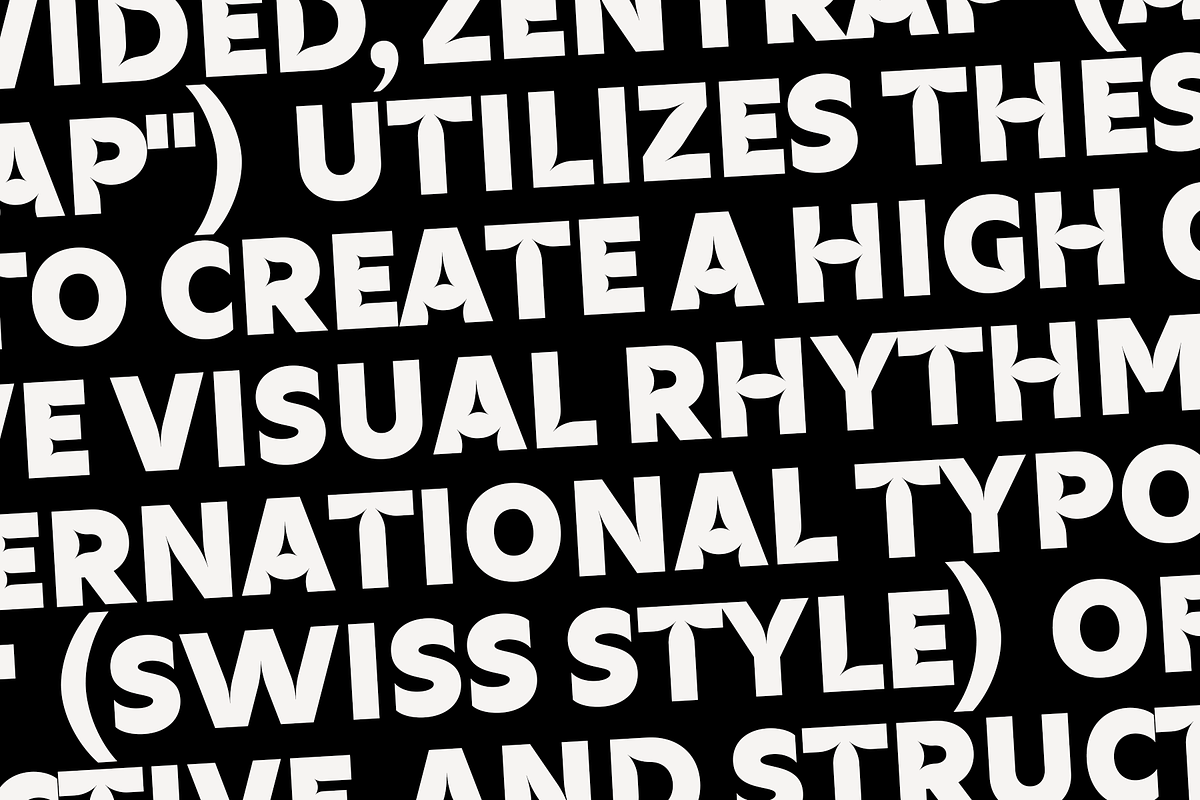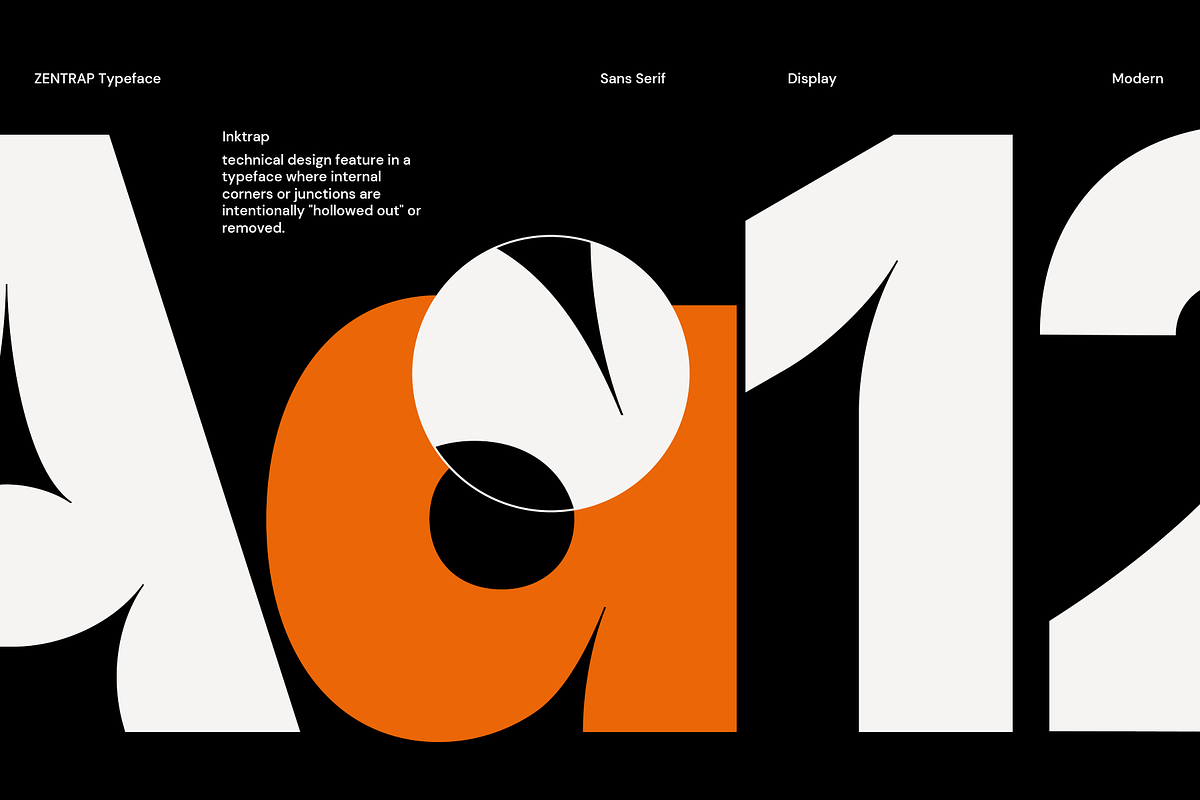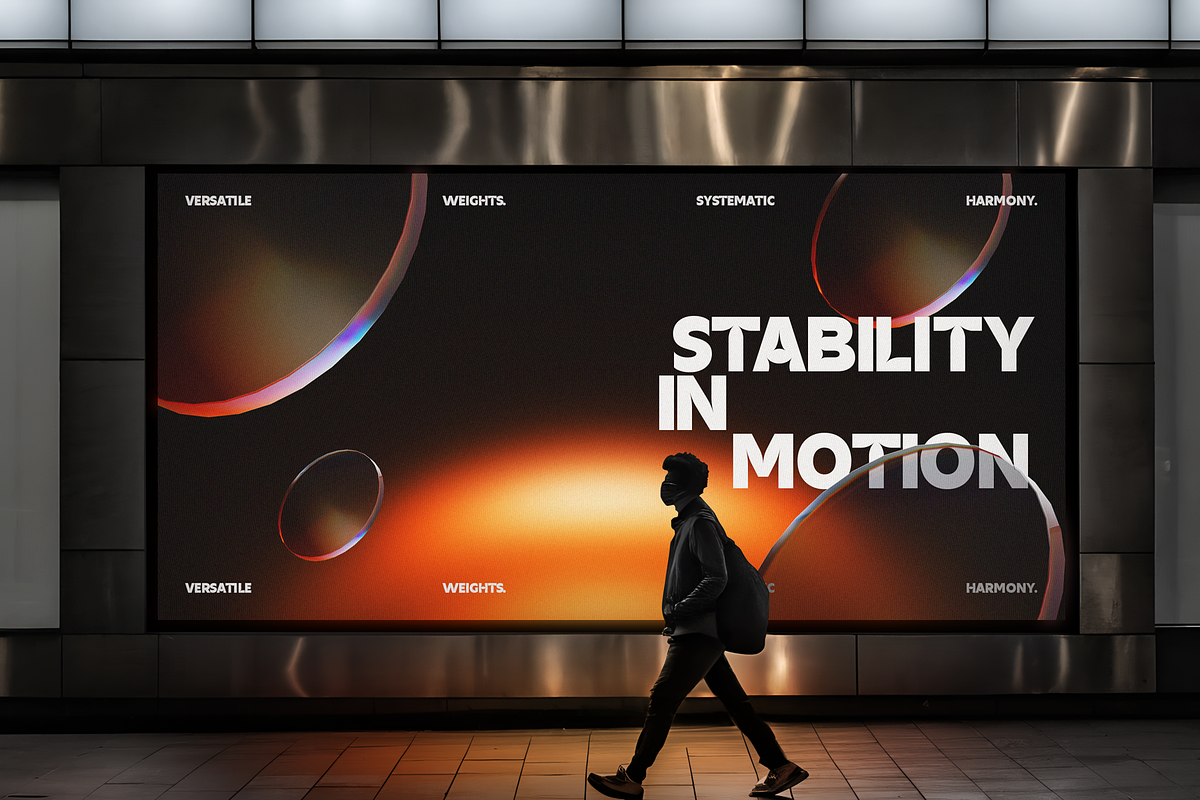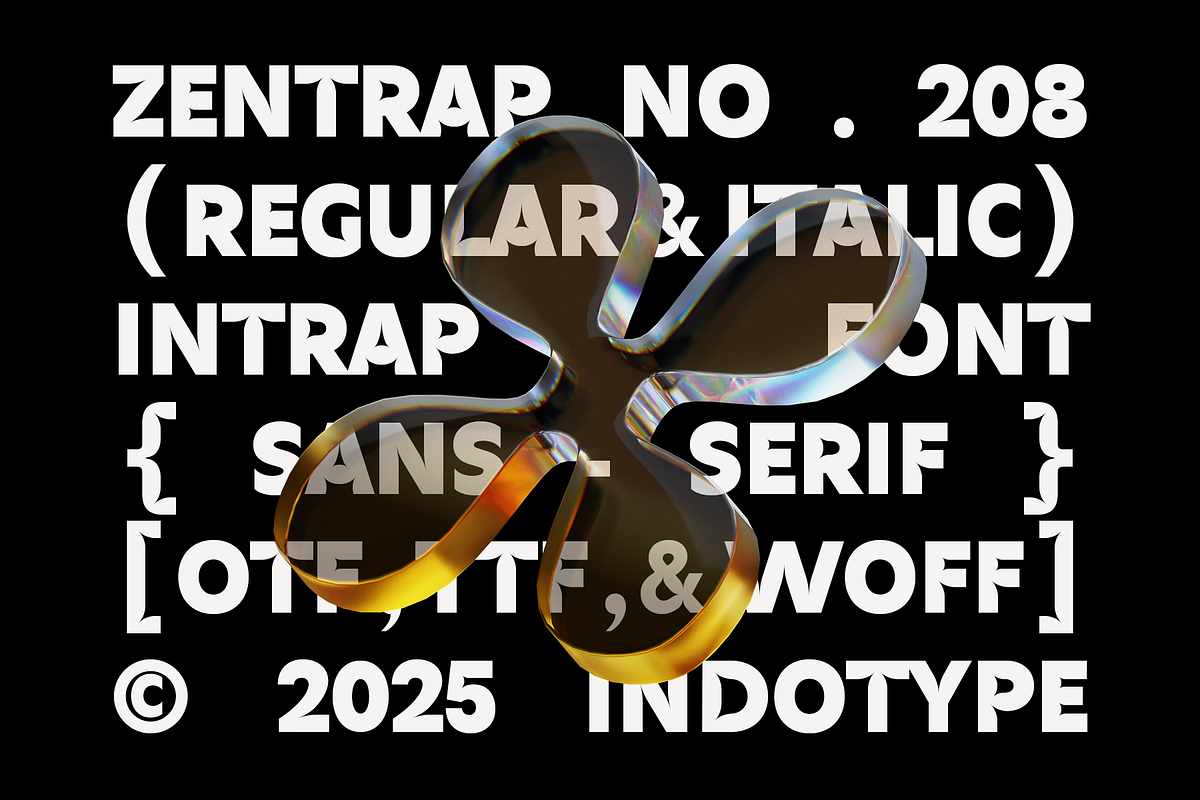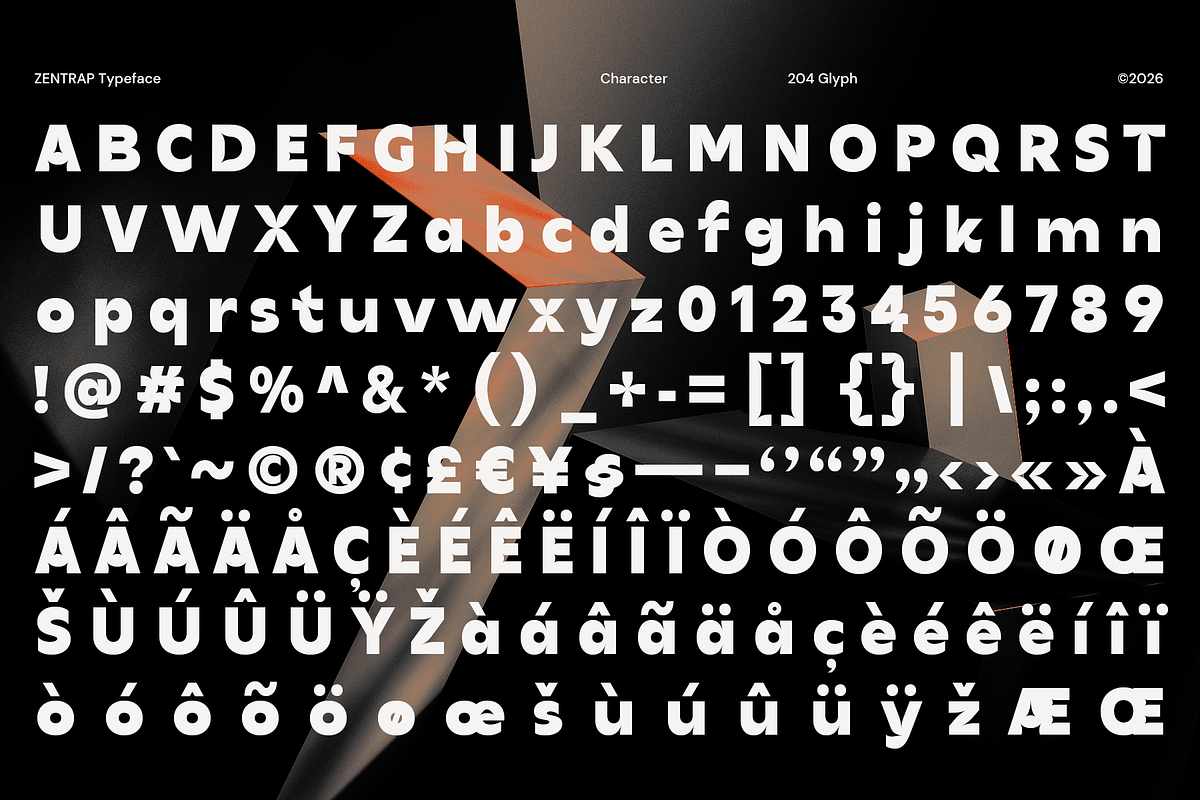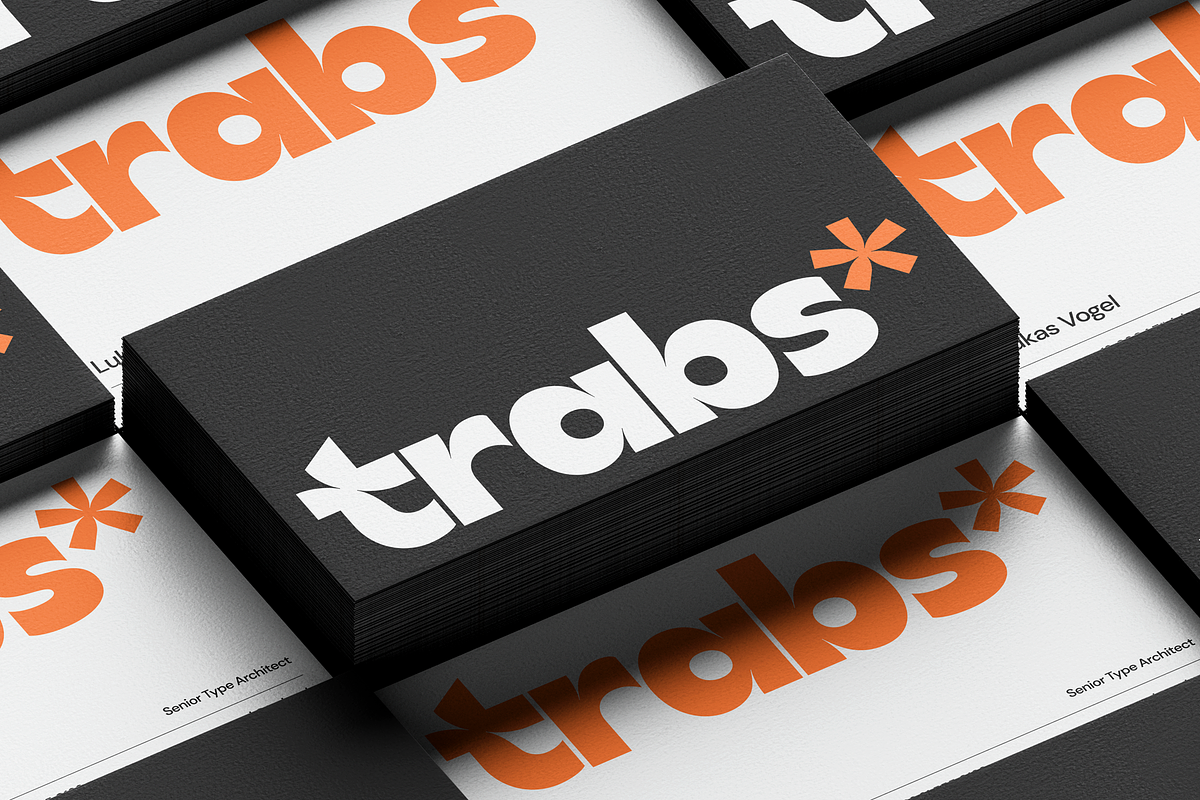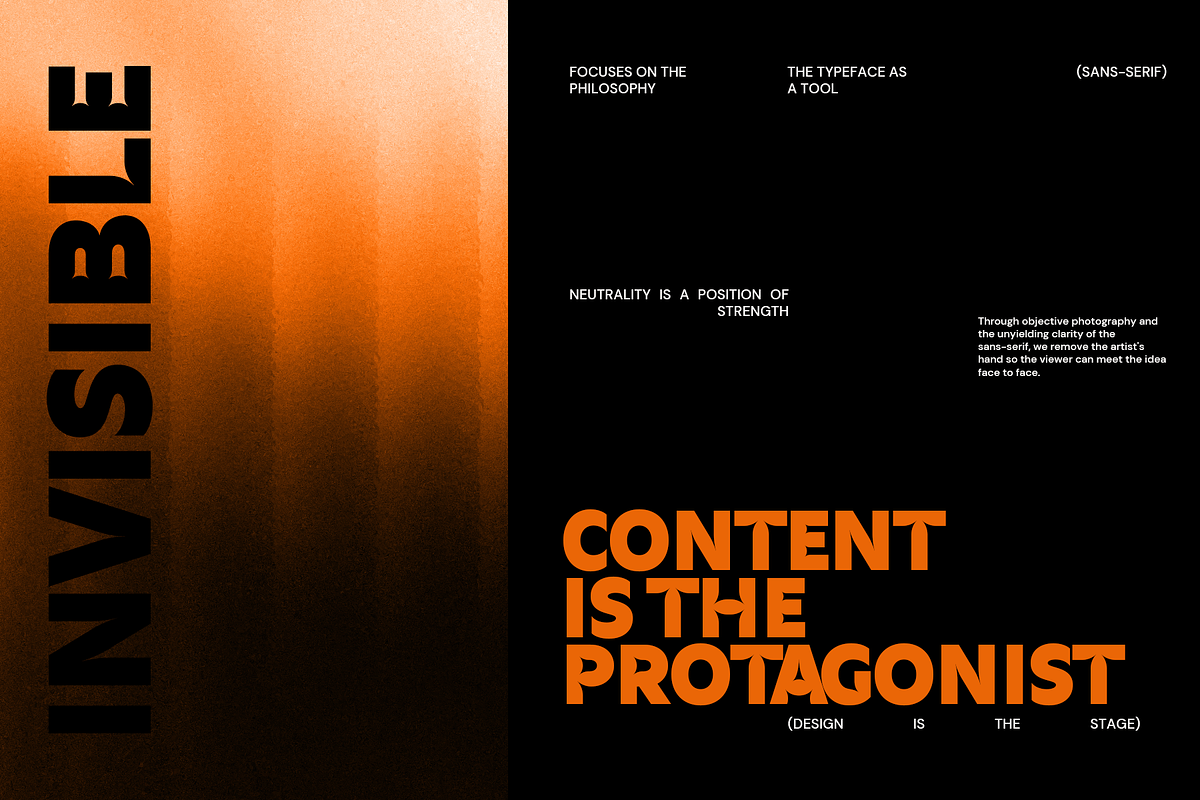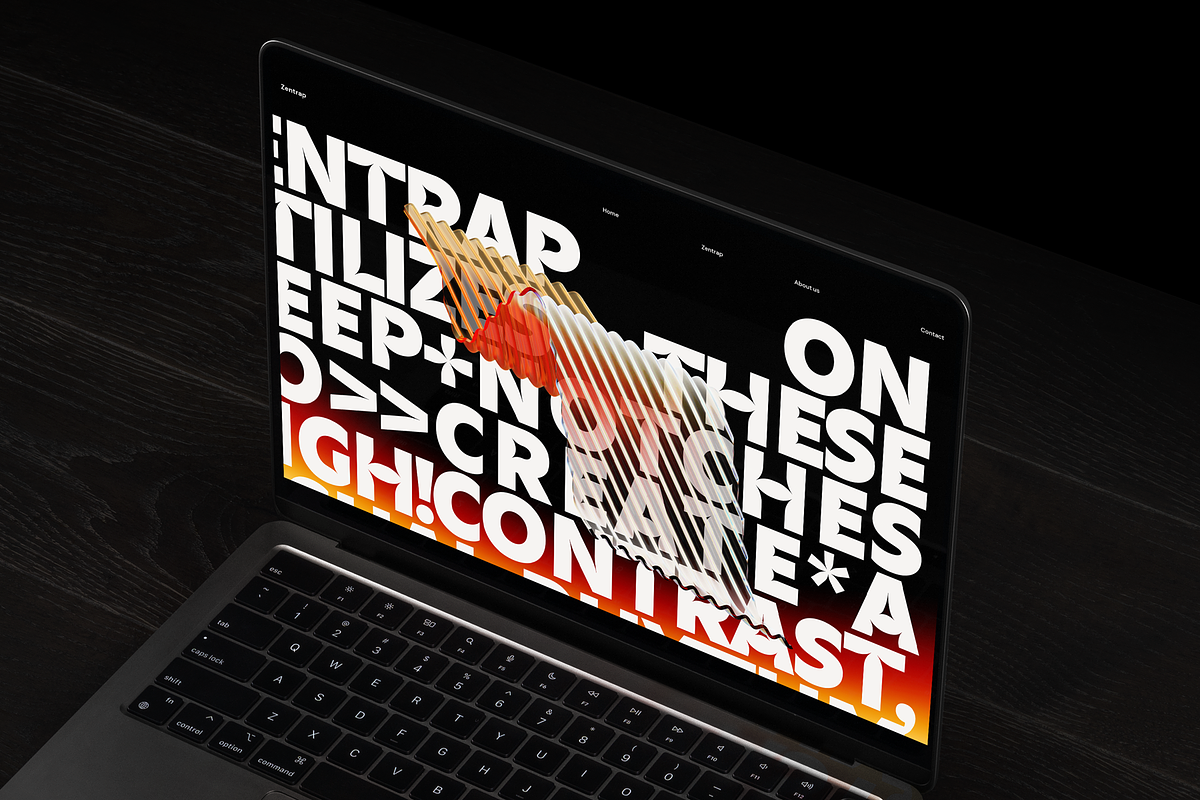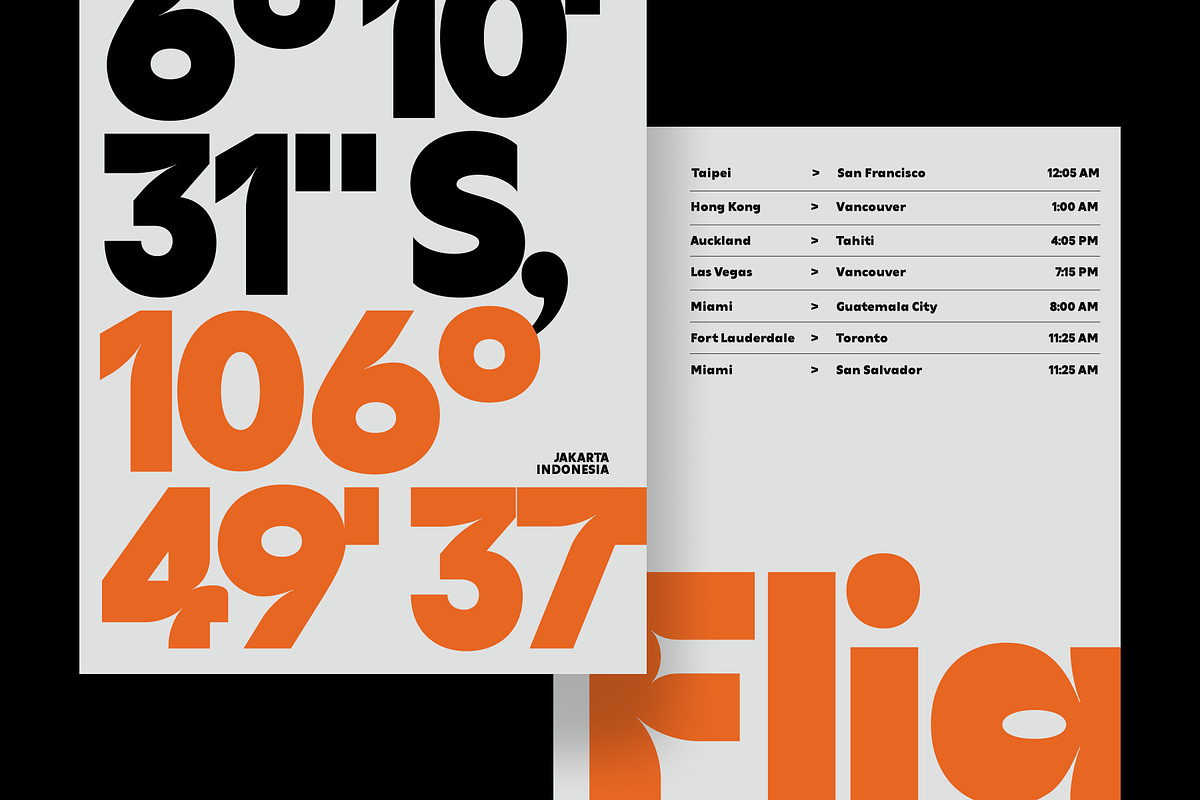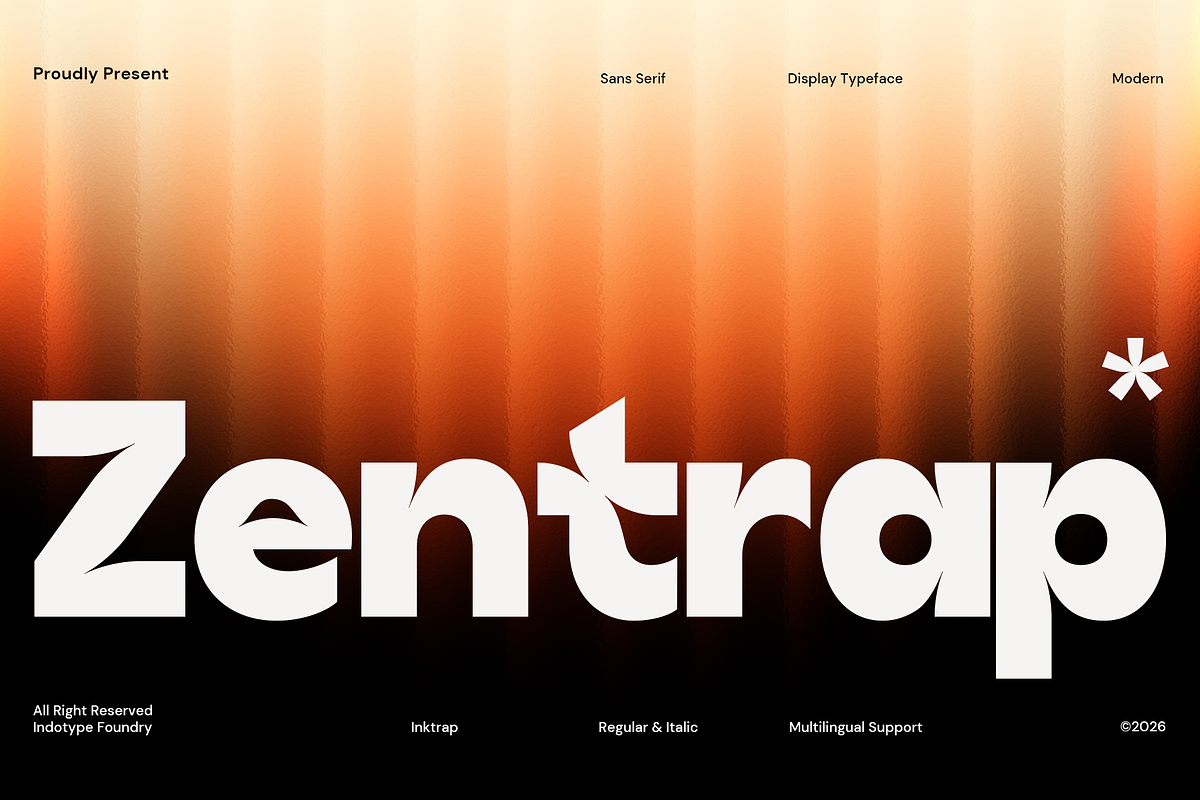
Zentrap - Modern Inktrap Sans Serif
Zentrap is a striking and intelligent display sans-serif defined by its distinctive ink trap detailing—a functional typographic feature turned bold aesthetic statement. These sharp, intentional cuts at the joints of letterforms give Zentrap a unique architectural quality, creating high contrast and visual interest that stands out at any scale. It’s a font where technical precision meets modern, graphic boldness. Built for versatility, Zentrap includes both a solid Regular and a dynamic Italic style, complemented by full multilingual support for global application. This combination of sharp detail and clean geometry makes it ideal for tech-forward branding, editorial headlines with an edge, sophisticated packaging, and any design project that aims to look meticulously crafted and confidently modern.
- Classification: Sans-Serif, Display, Geometric, Inktrap.
- Attributes: Sharp, Modern, Architectural, Intelligent, Bold, Technical, Sophisticated.